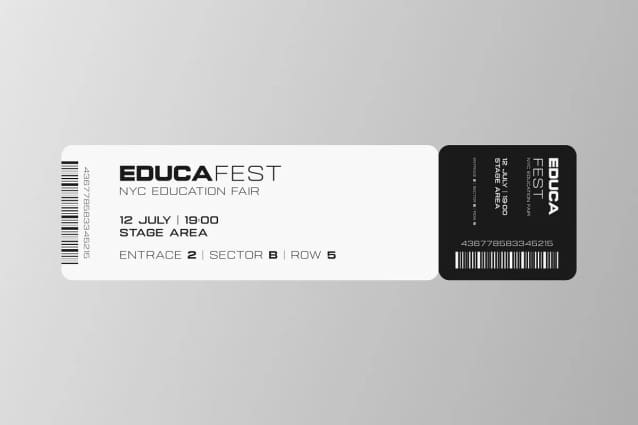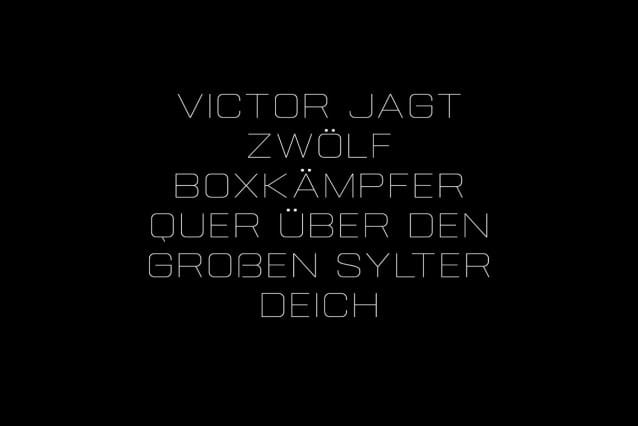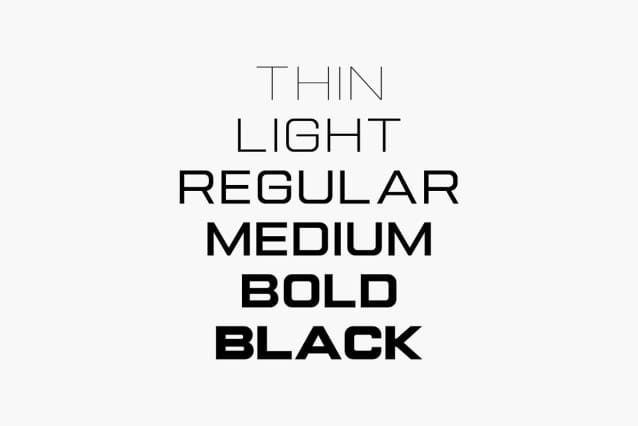
Gemsbuck 01 Thin Font
Gemsbuck 01 Thin Font -Gemsbuck Font Family – a stunning sans serif font that will elevate your designs to the next level! This new font is perfect for designers, artists, entrepreneurs, bloggers, and anyone who wants to make their creative projects stand out.